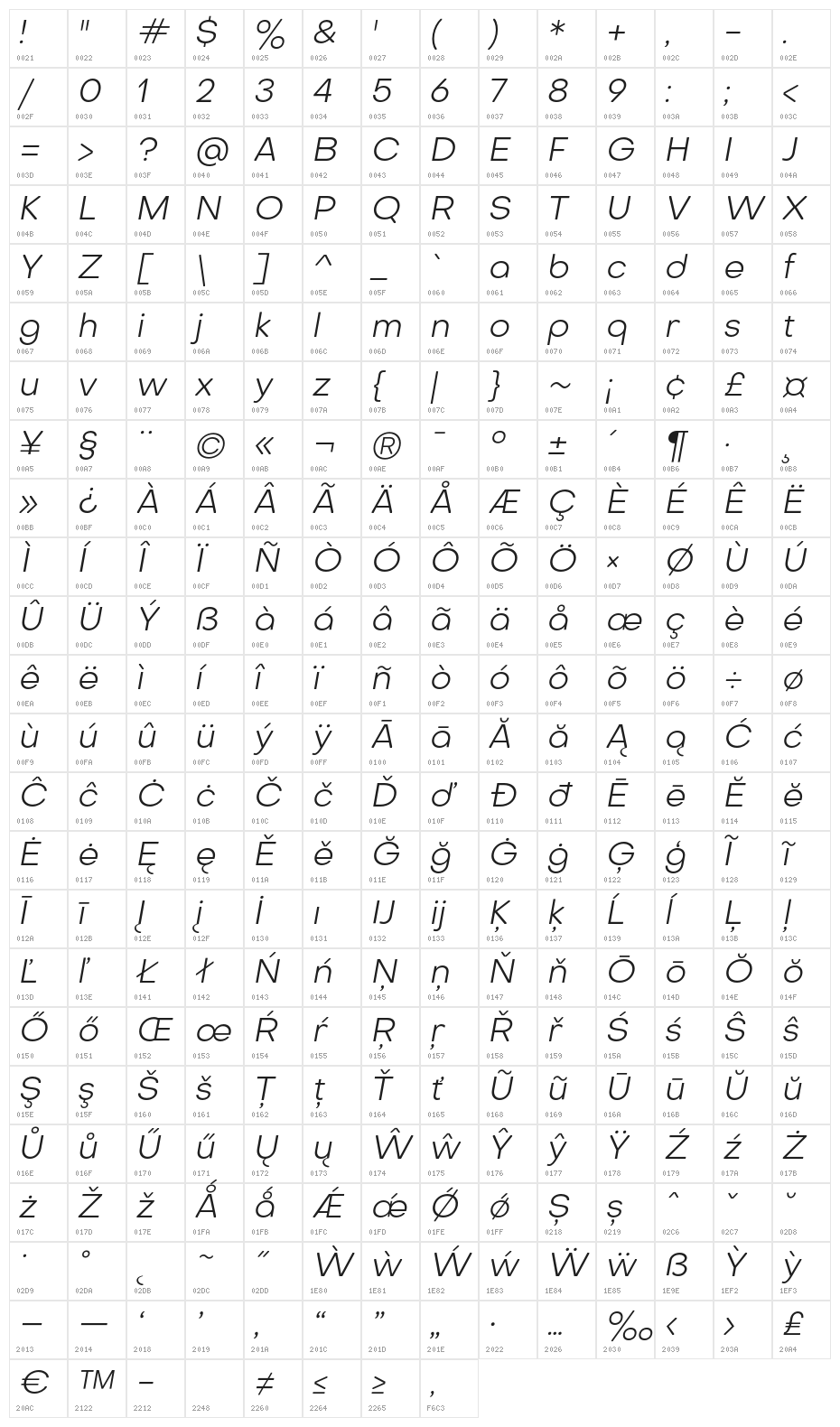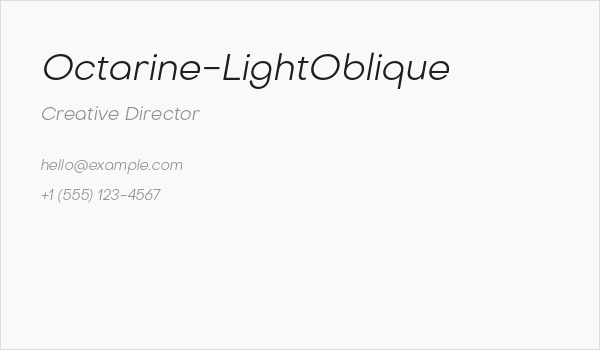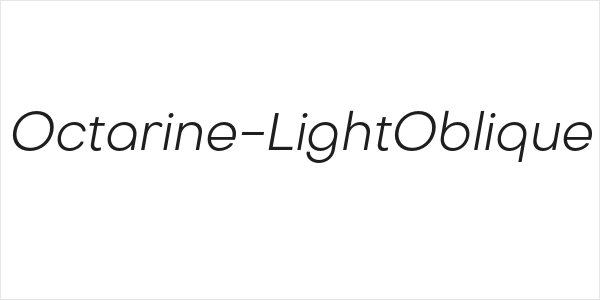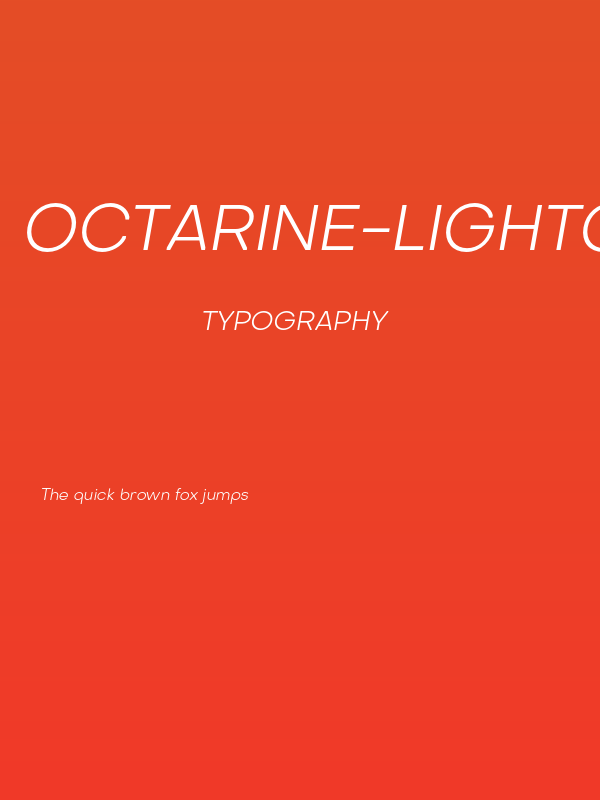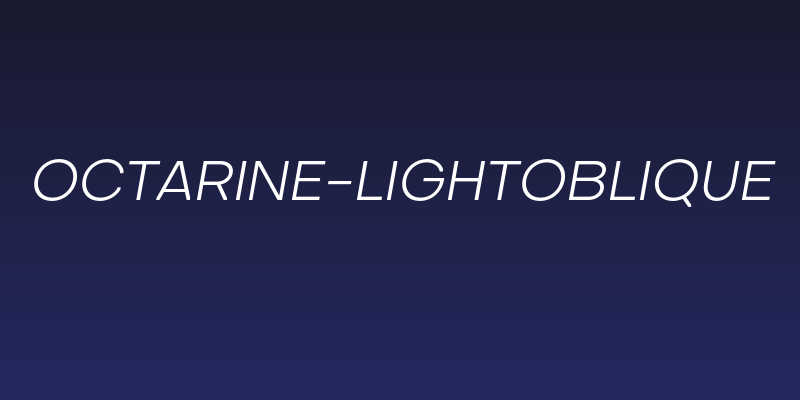
Octarine-LightOblique Font
Octarine-LightOblique Description
This font presents a sleek, modern aesthetic with its light and oblique style. The characters are elegantly slanted, giving a sense of motion and fluidity. The typeface is clean and minimalistic, with smooth curves and a consistent stroke width that enhances readability. The uppercase and lowercase letters maintain a harmonious balance, while the numerals are clear and straightforward. Special characters are designed with the same attention to detail, ensuring versatility across various applications. This font's refined appearance makes it suitable for contemporary design projects.
| Proposed Projects | Ideal for modern branding, editorial design, digital interfaces, and advertising campaigns. |